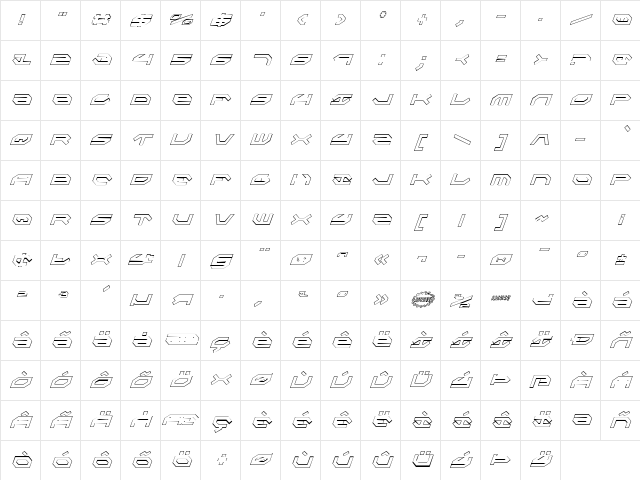
Taskforce Outline CondItalic Outline CondItalic
Design Context for Taskforce Outline CondItalic
Taskforce Outline CondItalic brings high-energy athletic personality to the page - its confident, muscular forms are built for impact. The slanted form adds forward momentum and visual energy. Its narrow stance lets it pack a punch even in space-constrained designs.